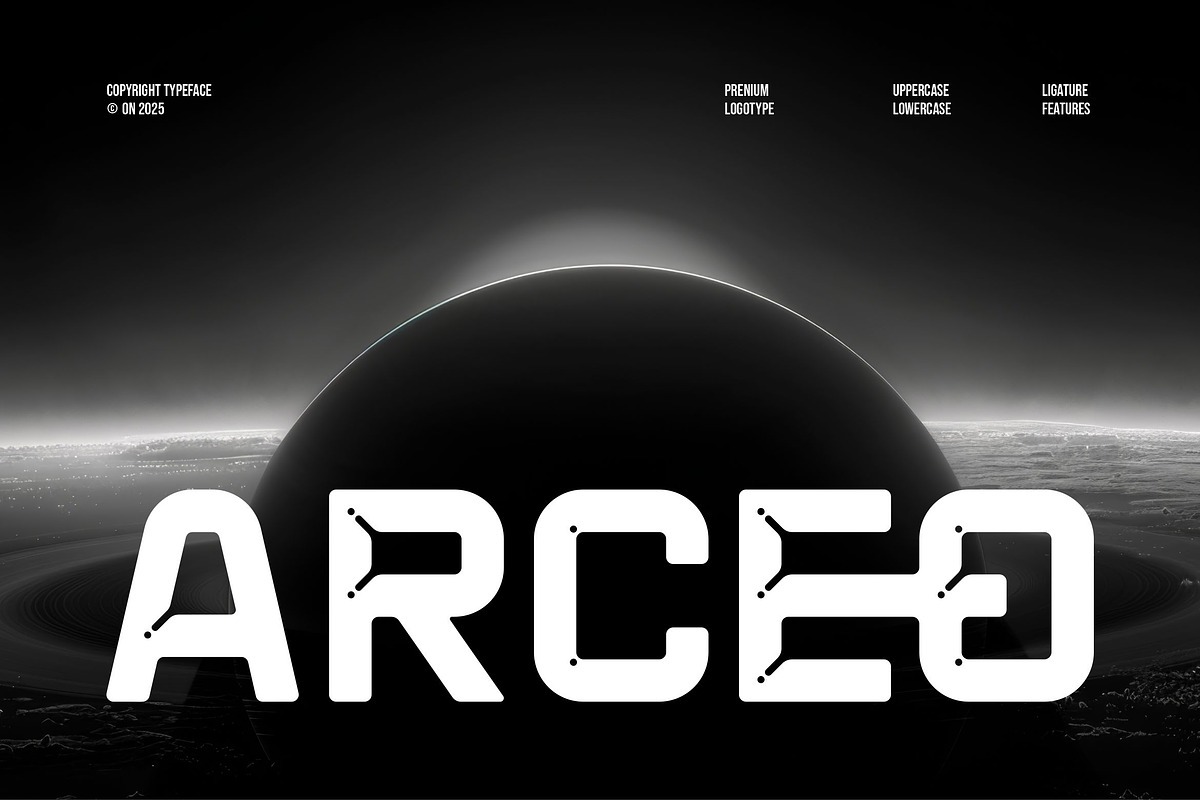
Arceo Font
Arceo Font is a stylish typeface that enhances visual appeal and works effortlessly in many design contexts. Arceo Sans Serif is a modern and futuristic font type for all branding and logo designs. This modern and futuristic Sans Serif font has a beautiful character. This font is suitable for invitation card designs, cool logos, movie titles, movie names, business cards, book titles, brand names, and various other designs. Arceo Sans Serif is a smooth serif font that exudes sophistication and the moment. Its stylish ligatures make this font a perfect partner for any project.